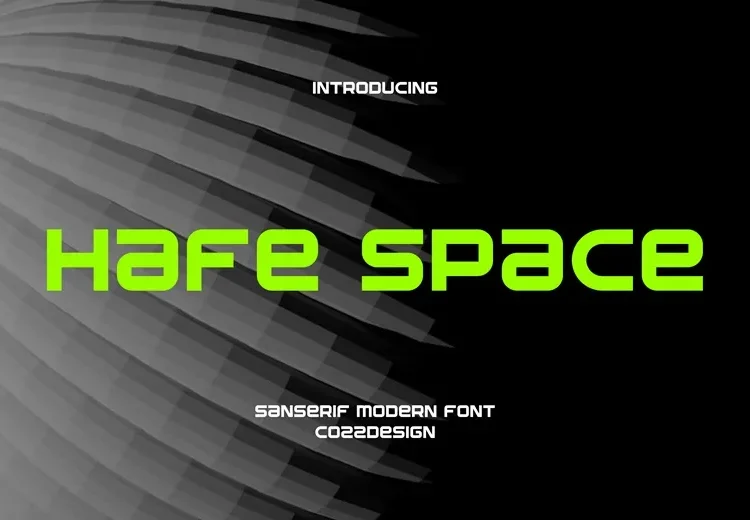
Hafespace Font
Hafespace Font is a new contemporary and neat sans serif typeface characterized by its strong and attractive letters. Its clean and modern design makes it ideal for branding tasks, such as logos and sports-related designs, and it can easily adapt to various contexts and applications.
Whether used for corporate branding or creative projects, Hafespace Font delivers a professional and stylish appearance, enhancing the visibility and appeal of your design. Its versatility ensures that it can be used across multiple mediums.